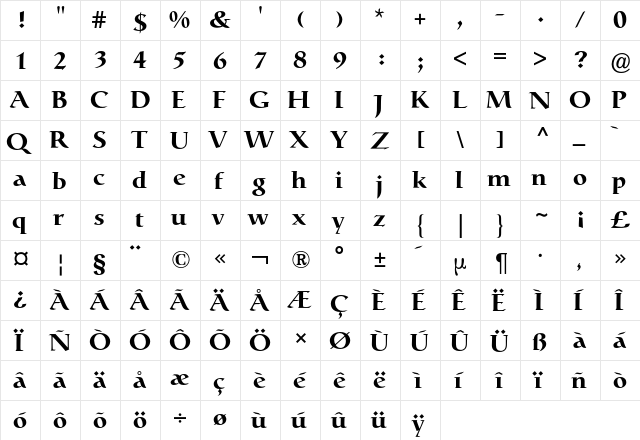
CatullBQ Regular Font Preview
CatullBQ Regular
Design Context for CatullBQ Typeface
CatullBQ offers clean, dependable letterforms without strong stylistic allegiance, making it a practical choice for designers who need flexibility.